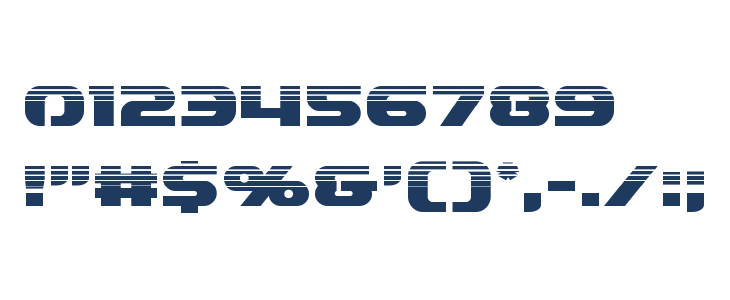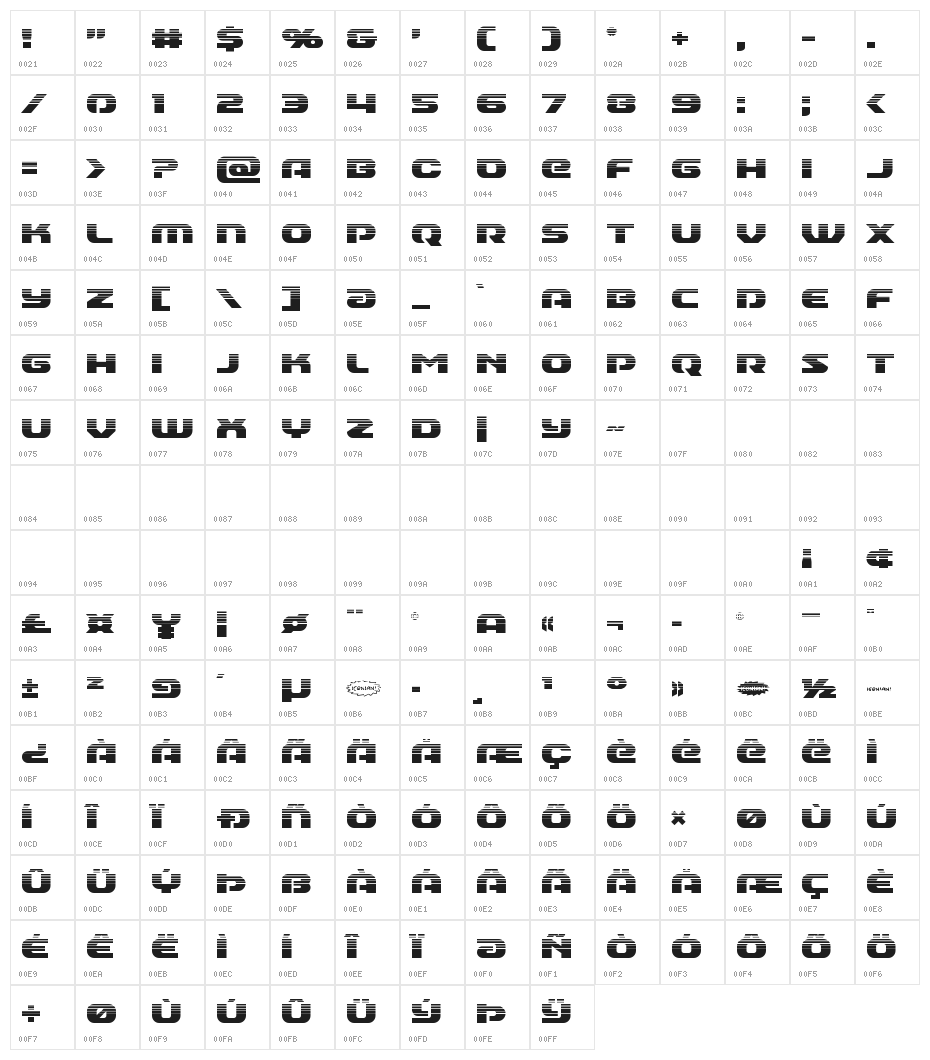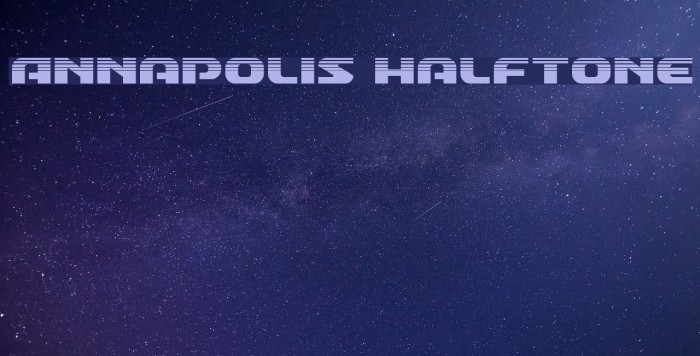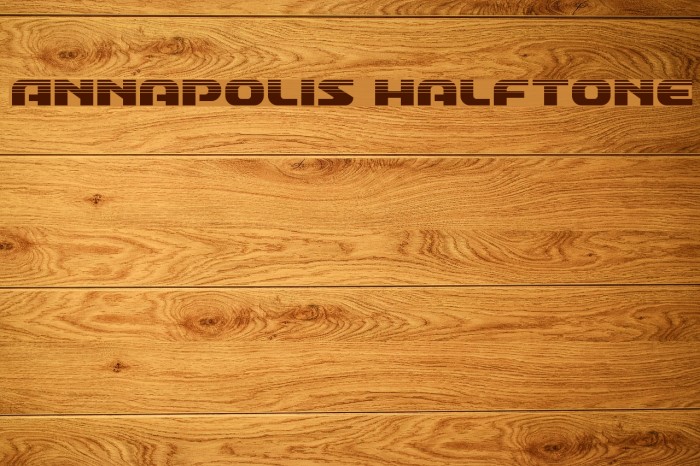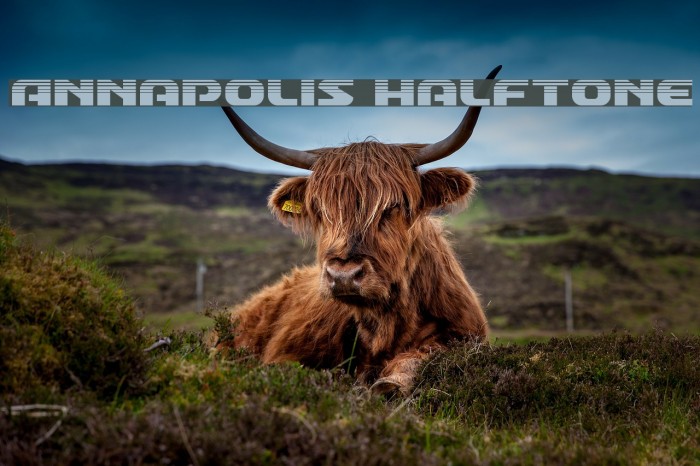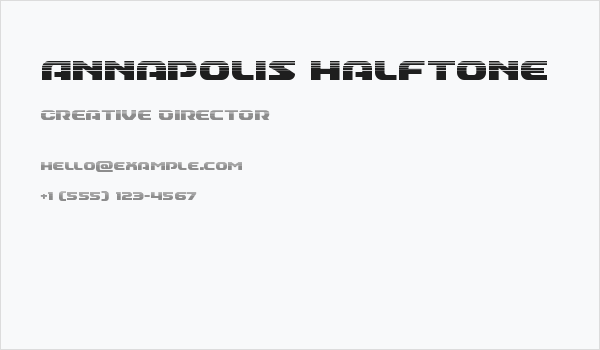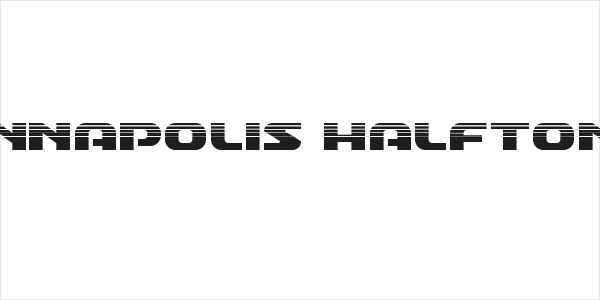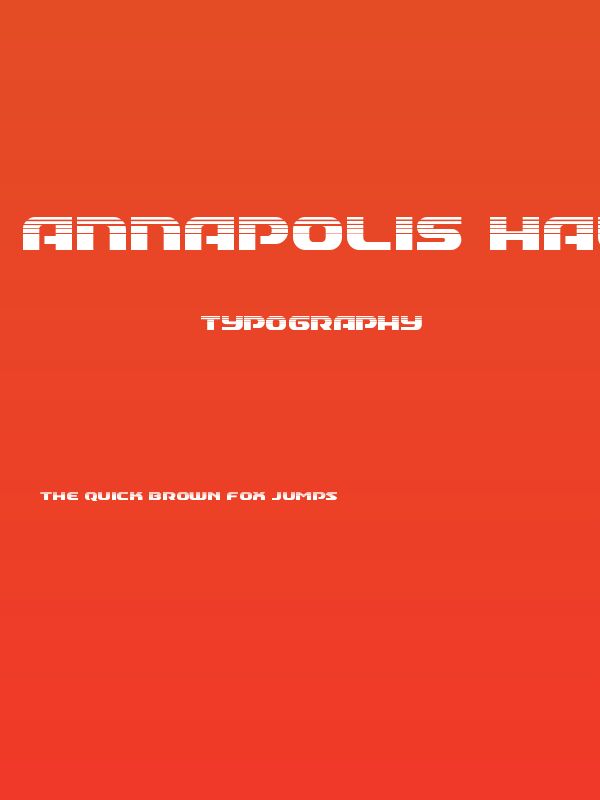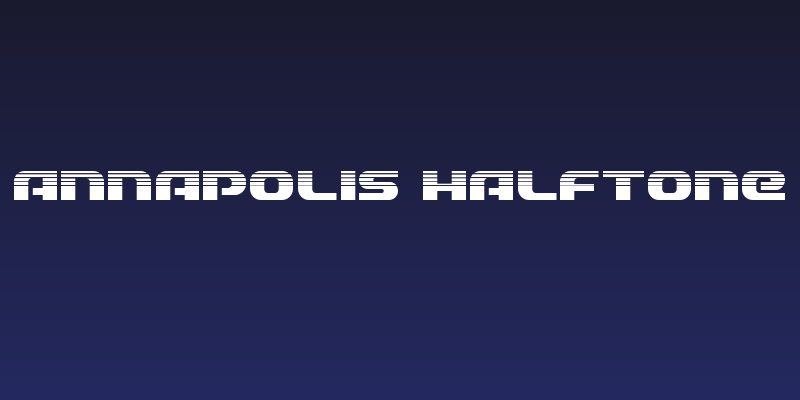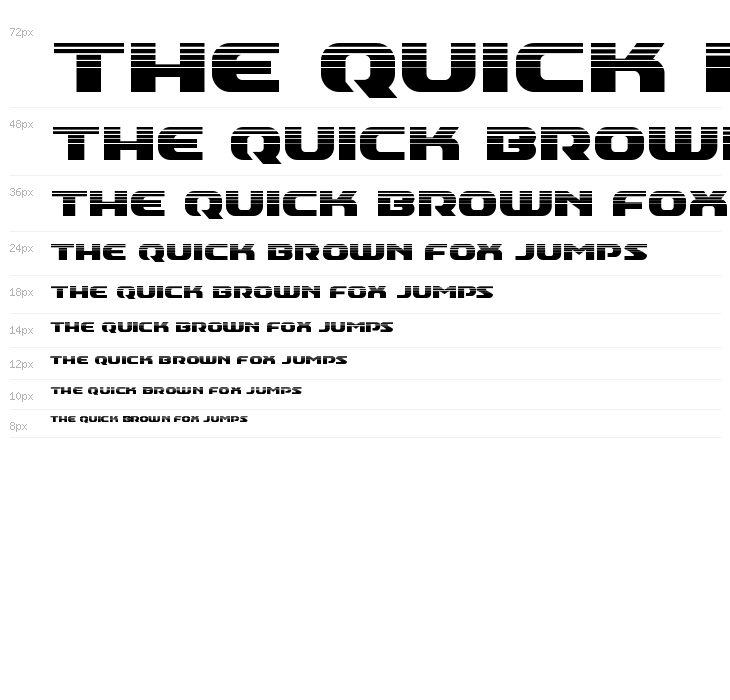
Annapolis Halftone Font
Annapolis Halftone Description
This font features a bold, geometric design with a halftone effect that gives it a unique, modern appearance. The characters are constructed with horizontal lines that create a sense of movement and depth. The uppercase and lowercase letters maintain a consistent style, with sharp angles and clean edges. The numbers and special characters follow the same design principles, ensuring a cohesive look across all glyphs. The font's distinct style makes it stand out, making it suitable for eye-catching designs.
| Proposed Projects | Ideal for posters, logos, and branding materials that require a modern and dynamic look. |